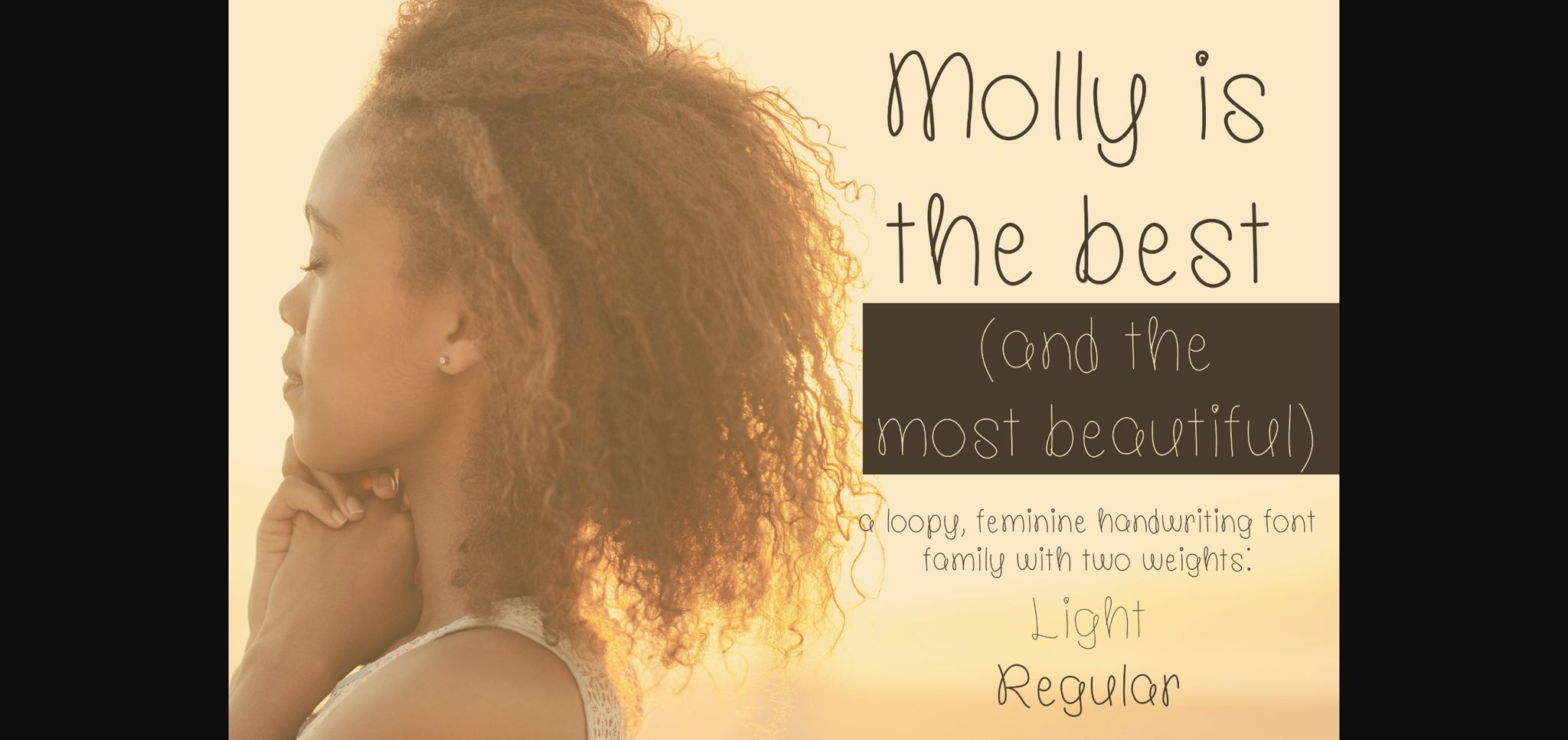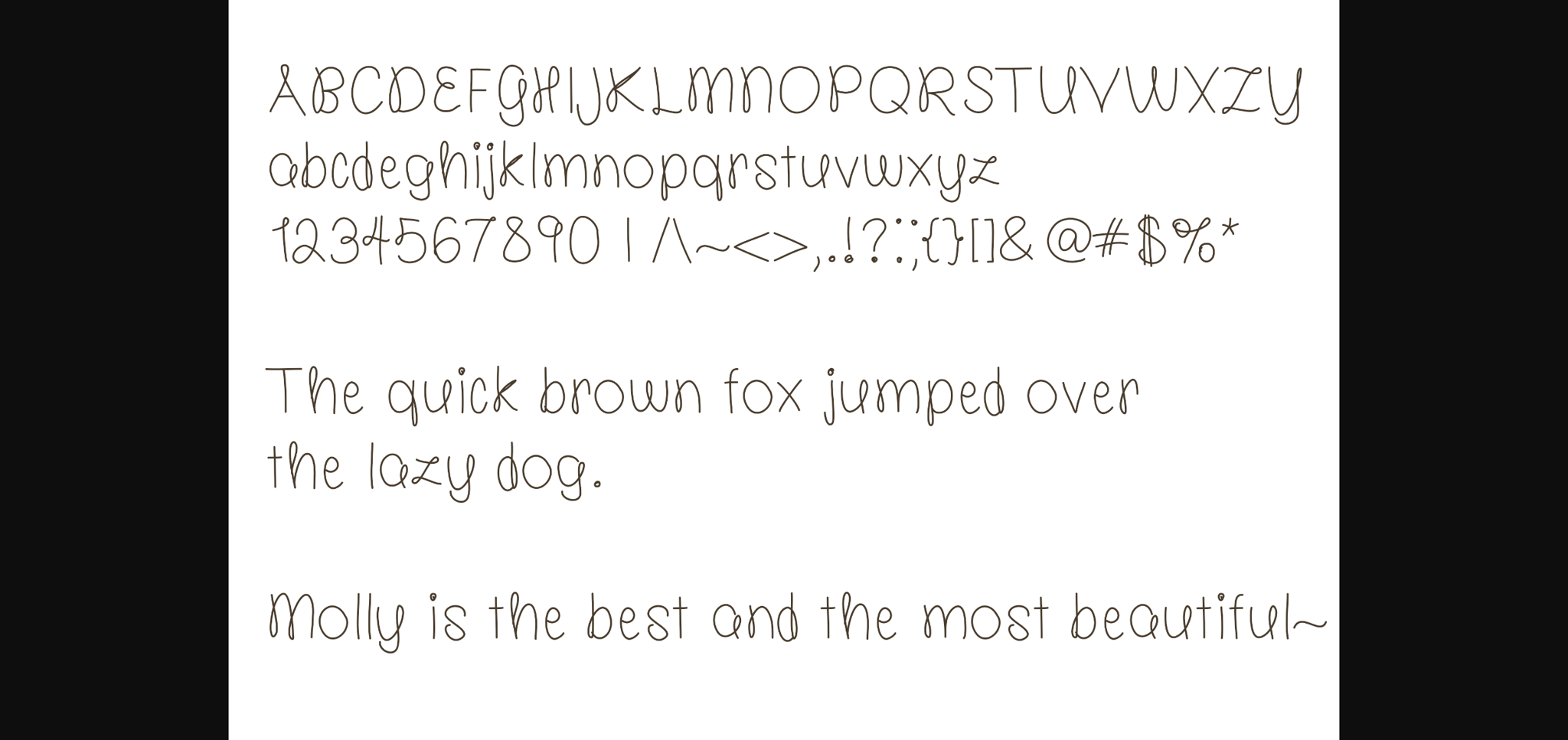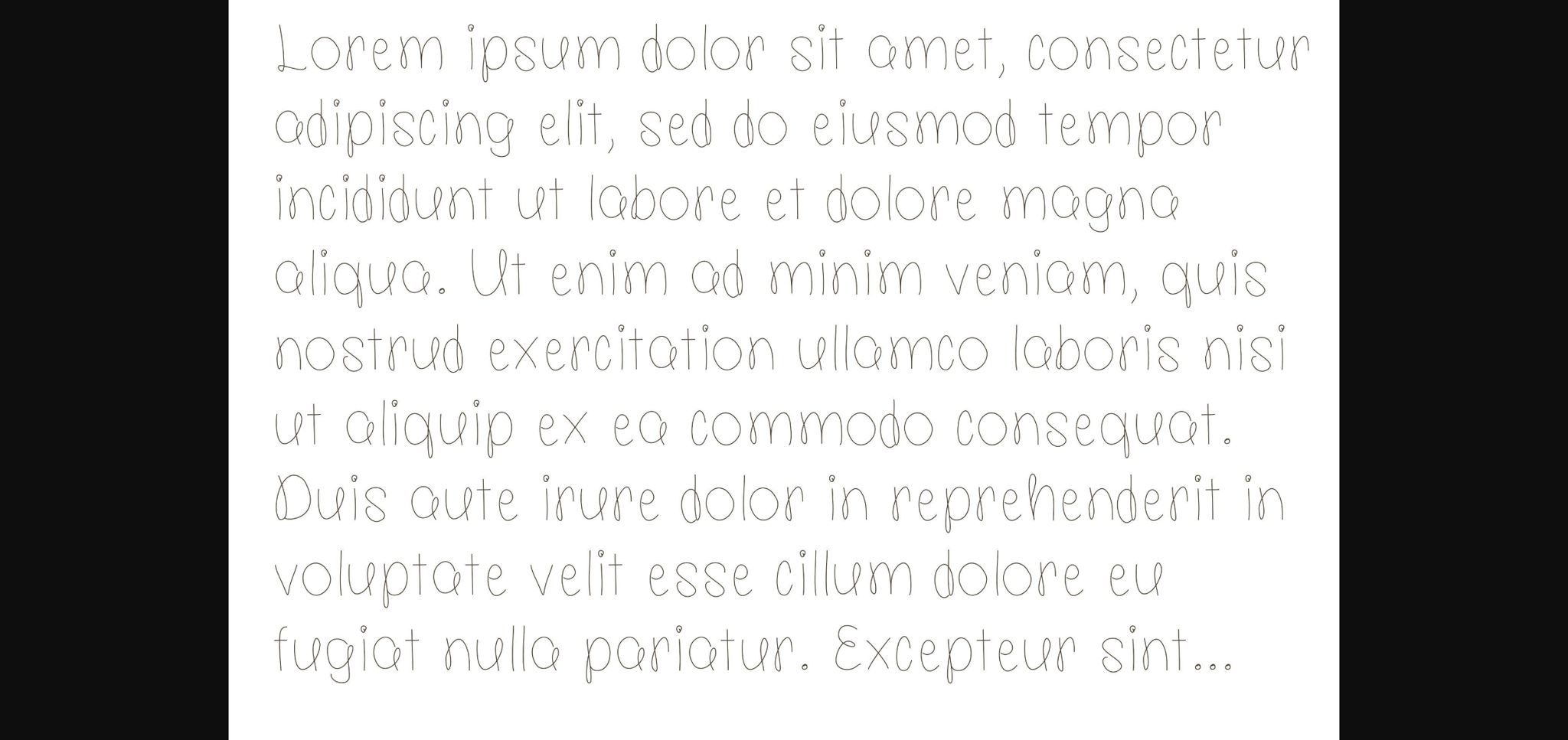
Molly is the best is a loopy, feminine handwriting font family with two weights: light and regular. It is fun, whimsical, and perfect for lettering quotes, logos, and more!